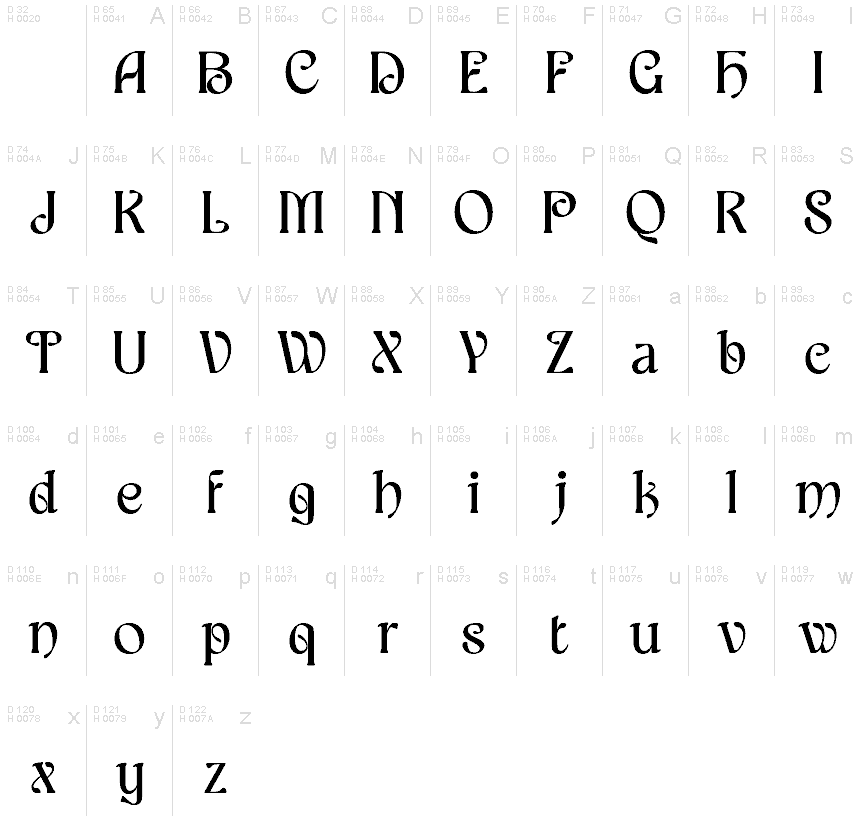
CS Chako Regular Demo
CS Chako font by Craft Supply Co. is a vintage serif typeface characterized by elegant curves and slightly whimsical character. With a nod to history, this ornamental font presents both modern refinement and a retro feel that is unique to its artistic design.
Free for experience, CS Chako is an impeccable choice for formal occasions like wedding invitations, museum logos, monumental signage, historical posters, or university branding. Vintage book covers or editorial layouts can highly benefit from it as well.